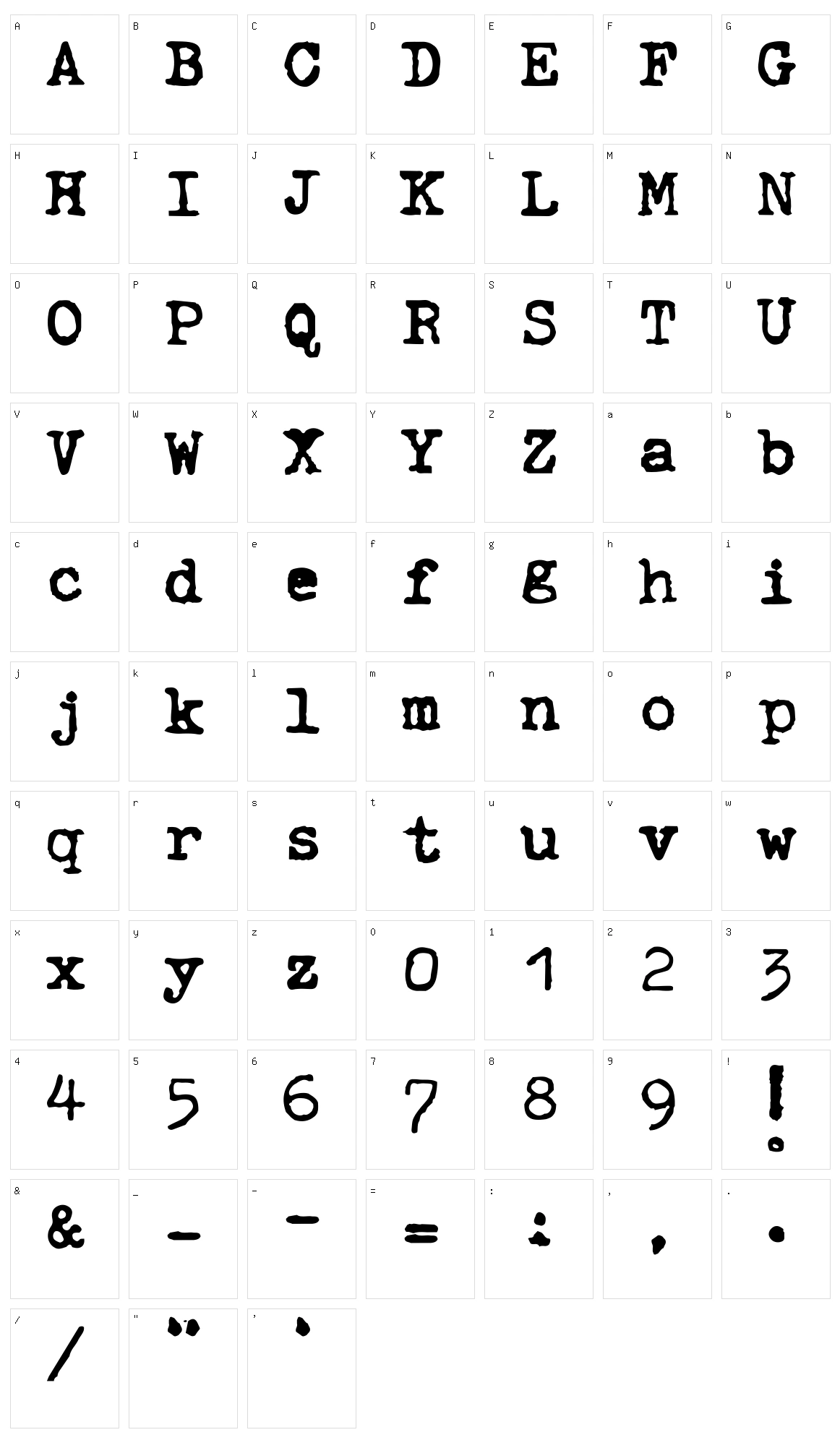
Olympia International typewriter that was manufactured in the 1970s, around 40 years after
the Ethiopian engineer Ayana Biru worked with an Italian company to develop the first
Amharic typewriter.
This typewriter font is based on high resolution scans of the Olympia International typewriter,
which was manufactured in the 1970s.This typewriter was made 40 years after the Ethiopian
engineer Ayana Biru worked with an Italian company named Olivetti in order to develop the
first Amharic typewriter. Some have gone as far as to say that Ayana Biru was the father of
modern typography because he introduced the Ethiopian script to the modern age.
Moreover, typographers that have come after him have based their typesets on the
typewriter font.